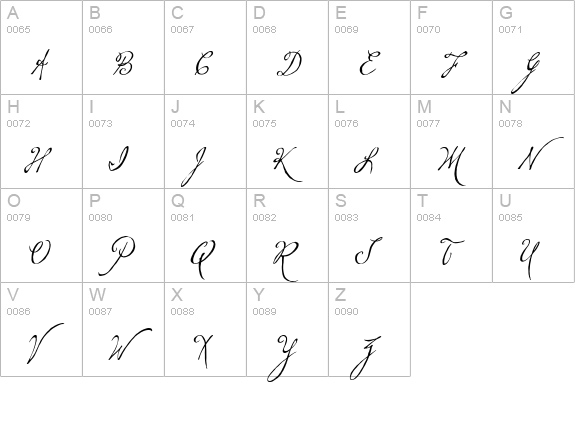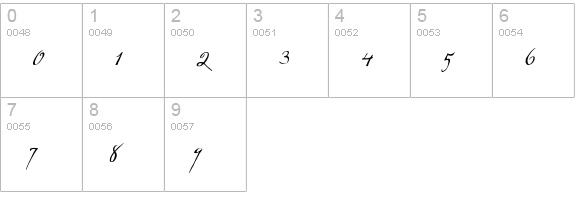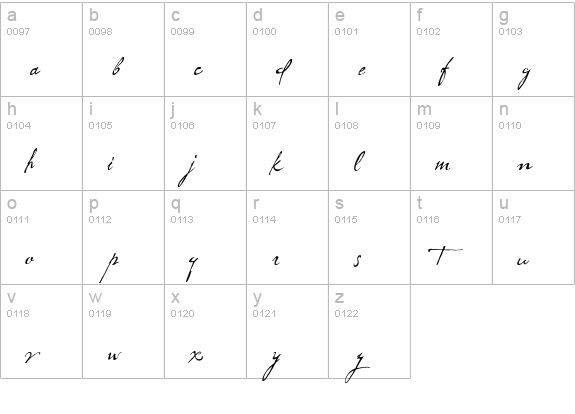
CK Maternal Font Details
Introducing CK Maternal font, a beautifully elegant and sophisticated typeface that exudes a sense of warmth and comfort. Designed with a touch of femininity and grace, this font is perfect for projects that require a gentle and nurturing feel. CK Maternal font features delicate curves and flowing lines that create a sense of harmony and tranquility. Best of all, CK Maternal font is completely free to download at FontsMarket.com. Whether you're working on a project for a maternity clinic, baby shower invitations, or any other design that needs a soft and loving touch, CK Maternal font is the perfect choice. Download it today and add a touch of maternal charm to your creative endeavors.